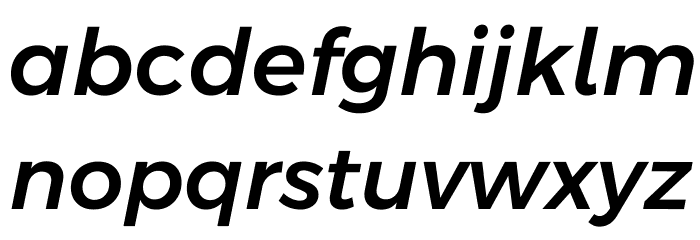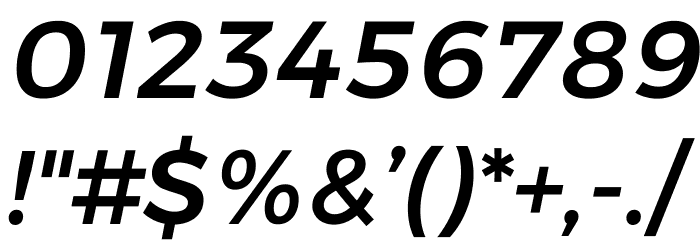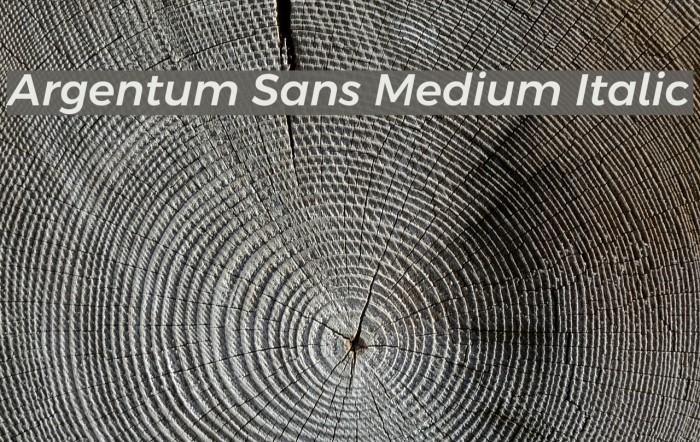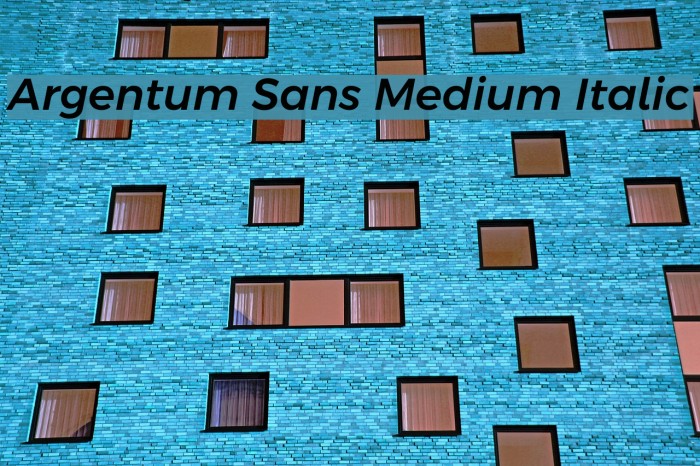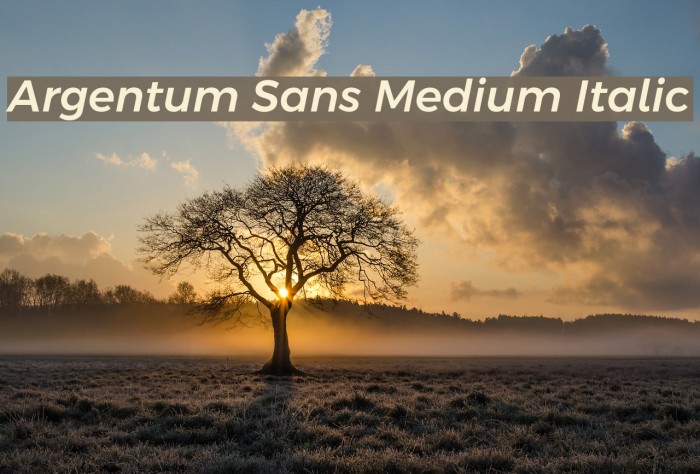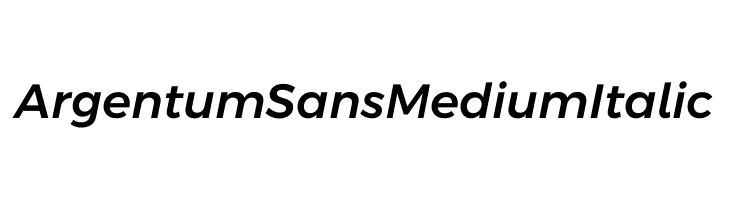
Argentum Sans Medium Italic Font
This font is a sleek and modern sans-serif typeface with a medium weight and italic style. It features clean lines and a slightly condensed form, giving it a contemporary and professional appearance. The characters are well-balanced with a consistent stroke width, providing a harmonious and readable text. The italic slant adds a dynamic and elegant touch, making it suitable for various design applications. The font includes a full set of uppercase and lowercase letters, numerals, and a range of punctuation and special characters, ensuring versatility in use.
A modern, medium-weight sans-serif italic font with clean lines and a slightly condensed form.
- Proposed Projects: Ideal for branding, advertising, web design, and editorial projects where a modern and professional look is desired.